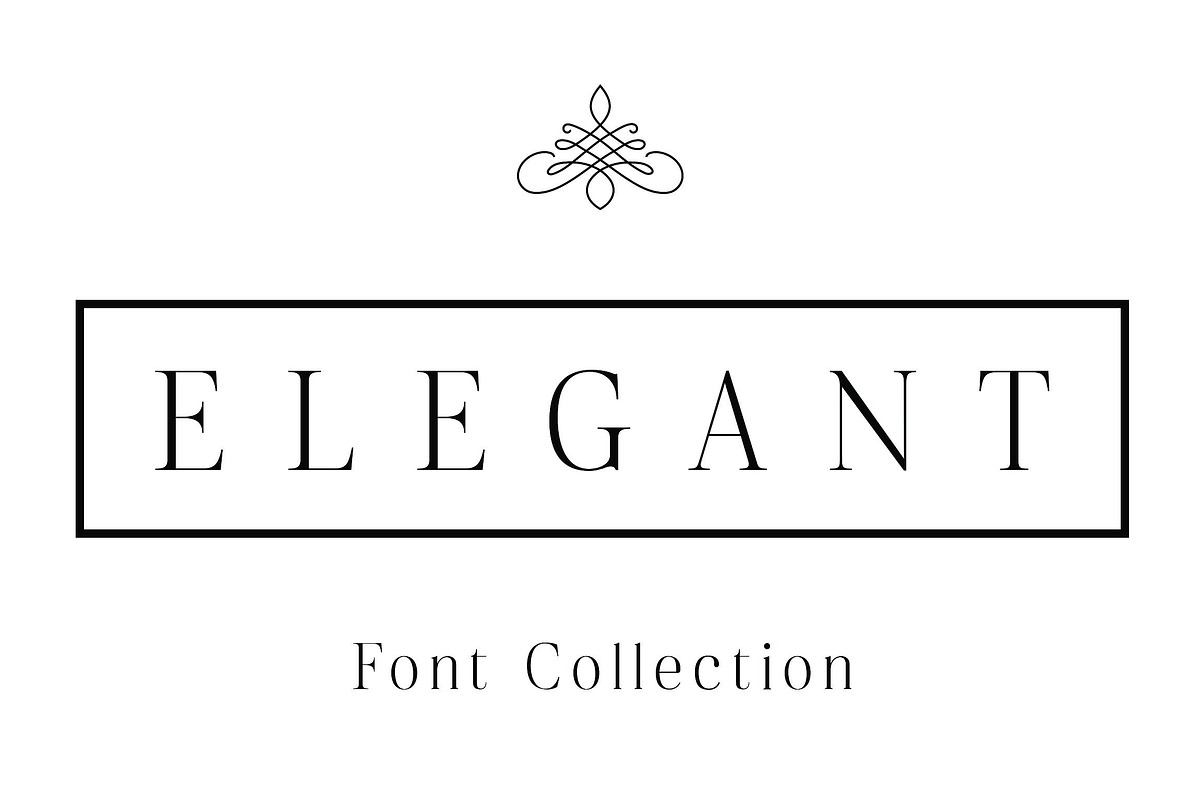
Elegant Font Collection - 7 Fonts Free Download
Elegant Font Collection - 7 Fonts Free Download is a curated bundle of seven high-quality fonts designed to bring sophistication and versatility to your designs. This collection includes a variety of elegant scripts, modern serifs, and clean sans-serif fonts, perfect for branding, invitations, websites, editorial layouts, and much more.
Whether you're working on luxury branding, a wedding design, a creative logo, or any project requiring a refined aesthetic, this collection provides everything you need. The fonts in the bundle offer various styles, from classic to contemporary, giving you complete flexibility in your design projects.